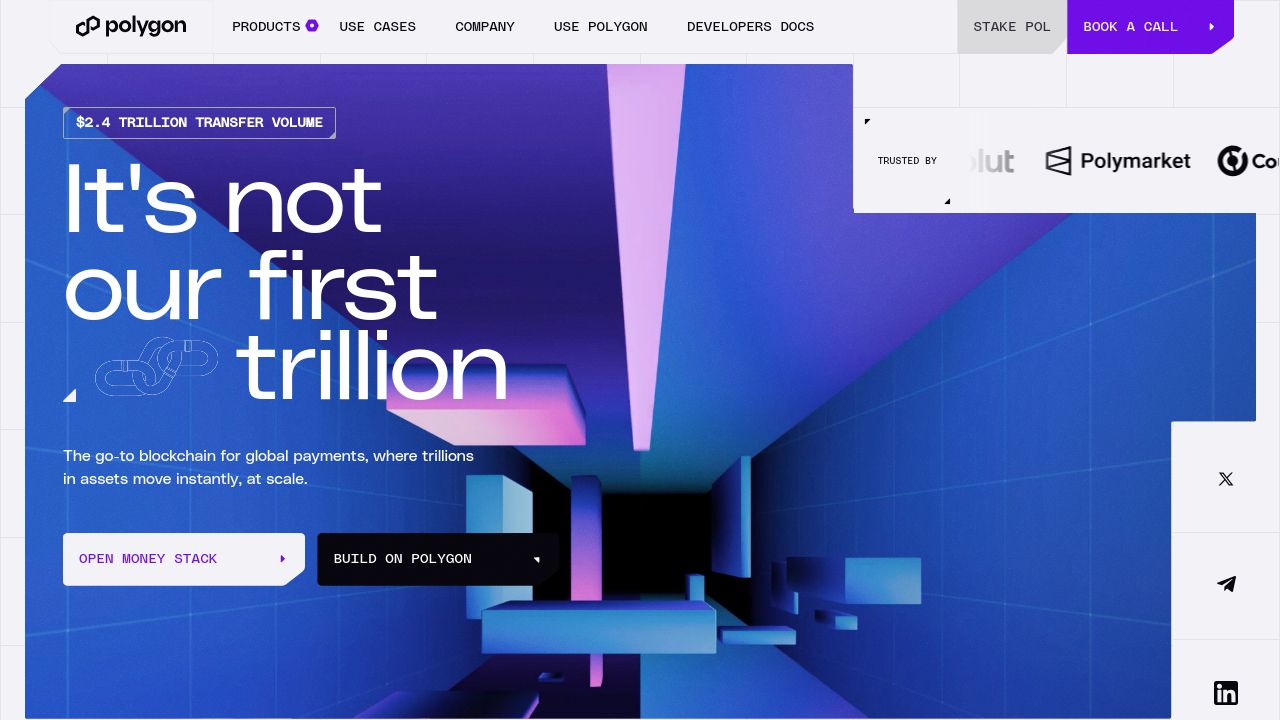
polygon.technology: What fonts does Polygon use? - PolySans, Polysans Slimwide, Helvetica
What fonts does Polygon use?
Polygon.technology uses PolySans, Polysans Slimwide, Roboto, Inter and Montserrat as its main typefaces. Helvetica, helvetica-neue, Arial and Segoe UI are declared as fallbacks. 14 fonts detected, last checked Jun 1, 2026.
Polygon.technology utilizes a distinctive blend of fonts that reflects its role in the blockchain sector. The use of Arial and Helvetica Neue provides a reliable foundation for readability, while Montserrat adds a unique character to headings. Custom fonts like PolySans and its variations emphasize the brand's modern approach, appealing to enterprises and institutions. This thoughtful typography enhances user experience, conveying trust and efficiency in global payments.
What fonts does Polygon.technology use?
Polygon.technology uses PolySans, Polysans Slimwide, Roboto, Inter and Montserrat as its main typefaces. Helvetica, helvetica-neue, Arial and Segoe UI are declared as fallbacks. 14 fonts detected, last checked Jun 1, 2026.
What fonts does polygon.technology use?
Polygon.technology primarily uses Arial, Helvetica Neue, Montserrat, and several custom fonts like PolySans, Polysans Slimwide, and Polysans Mono.
How do the fonts on polygon.technology compare to alternatives?
The fonts used on polygon.technology, such as Montserrat and PolySans, offer a distinct identity compared to alternatives like Open Sans or Roboto, providing a unique visual appeal suited for blockchain technology.
What styles and weights are used for these fonts?
Polygon.technology employs Arial at weight 400, Montserrat at weight 700, and various custom fonts like PolySans and Polysans Mono at weights of 300 and 400.